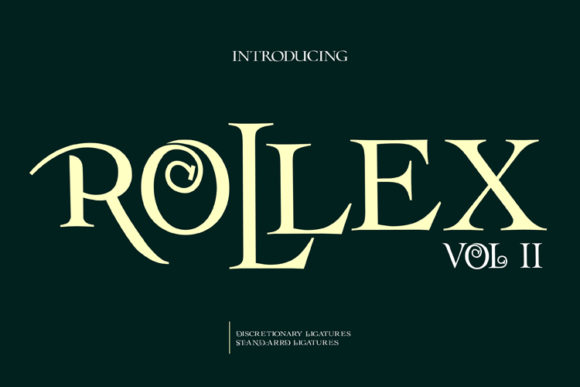
Rollex II Font
**Rollex II Font: The Epitome of Sophistication and Style**
Unleash the power of expression with Rollex II, an enchanting display font that exudes elegance and contemporary charm. Each character dances across digital screens with a graceful fluidity, captivating your audience with its alluring curves and stylish flourishes.
Indulge in the endless creative possibilities as Rollex II transforms your designs into masterpieces. Its versatility knows no bounds, effortlessly enhancing everything from branding and marketing materials to stunning website headers and social media posts. Elevate your projects to new heights of sophistication and leave an unforgettable impression.
**Immerse Yourself in a World of Creative Freedom**
With Rollex II, the boundaries of creativity dissolve as you embrace its boundless potential. Whether you seek to convey a timeless allure or inject a touch of modern flair, this font empowers you to craft designs that resonate deeply with your audience.
Imagine the captivating allure of a wedding invitation adorned with Rollex II's graceful script, promising an unforgettable celebration. Envision the bold impact of a magazine cover, where Rollex II's striking presence commands attention and entices readers to delve deeper. The possibilities are endless, fueled by your imagination and the transformative power of Rollex II.
**A Symphony of Sophistication and Style**
Rollex II is more than just a font; it's an artistic masterpiece that elevates your designs to new levels of refinement. Its carefully crafted curves evoke a sense of timeless elegance, while its contemporary touch adds a refreshing edge that sets your work apart.
Experience the joy of effortlessly creating designs that exude sophistication and style. With Rollex II as your creative companion, you'll captivate your audience, leaving a lasting impression that lingers in their minds long after they've encountered your work.
**Embrace the Allure of Rollex II Today**
Don't settle for ordinary fonts that fail to ignite your creativity. Choose Rollex II, the font that transforms your designs into captivating masterpieces. Its elegant charm and unparalleled versatility will empower you to express yourself with confidence and style.
Join the ranks of discerning designers who have embraced the allure of Rollex II. Experience the joy of creating designs that captivate, inspire, and leave an unforgettable mark on the world. Download Rollex II today and unleash your creative potential.